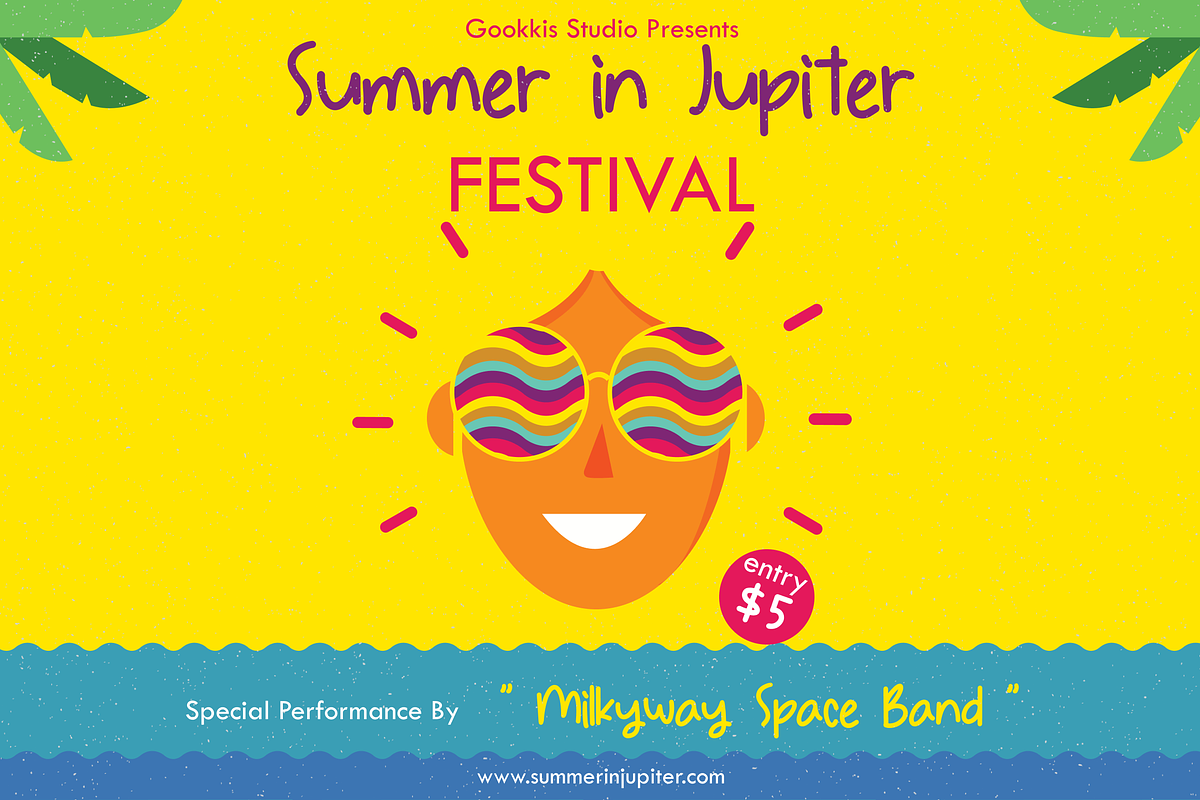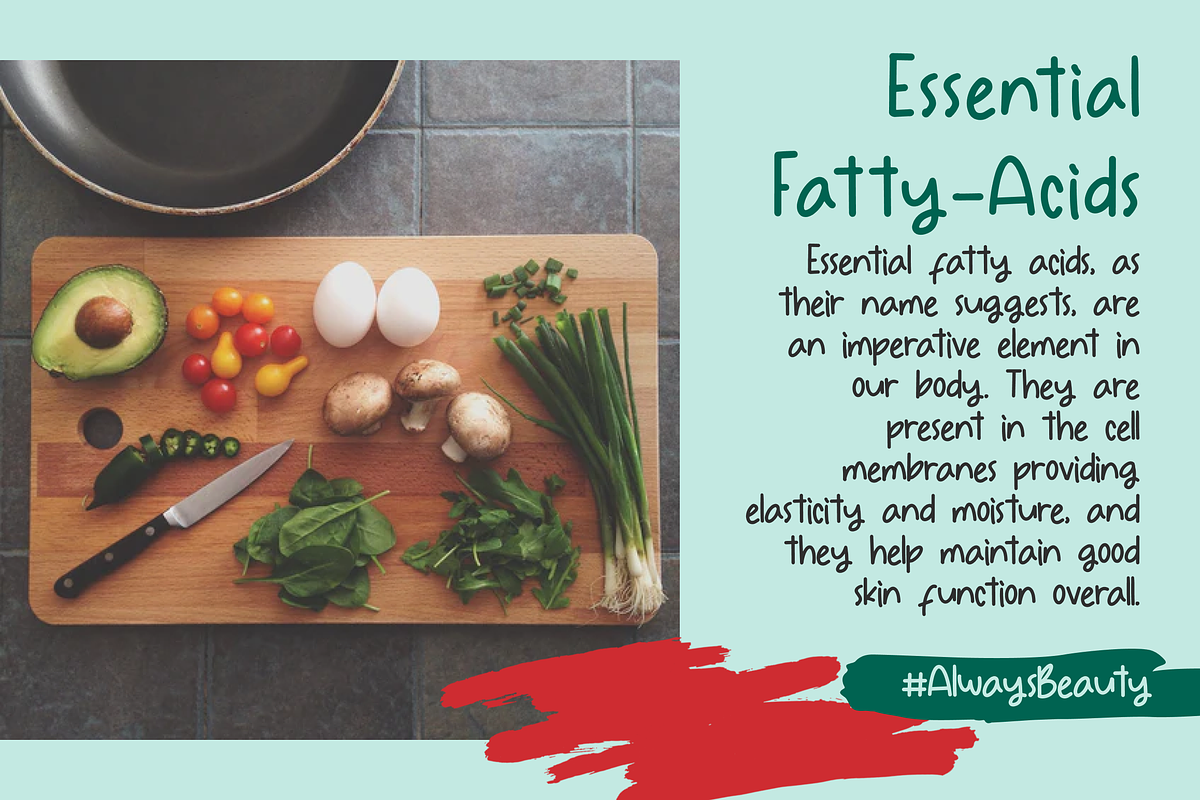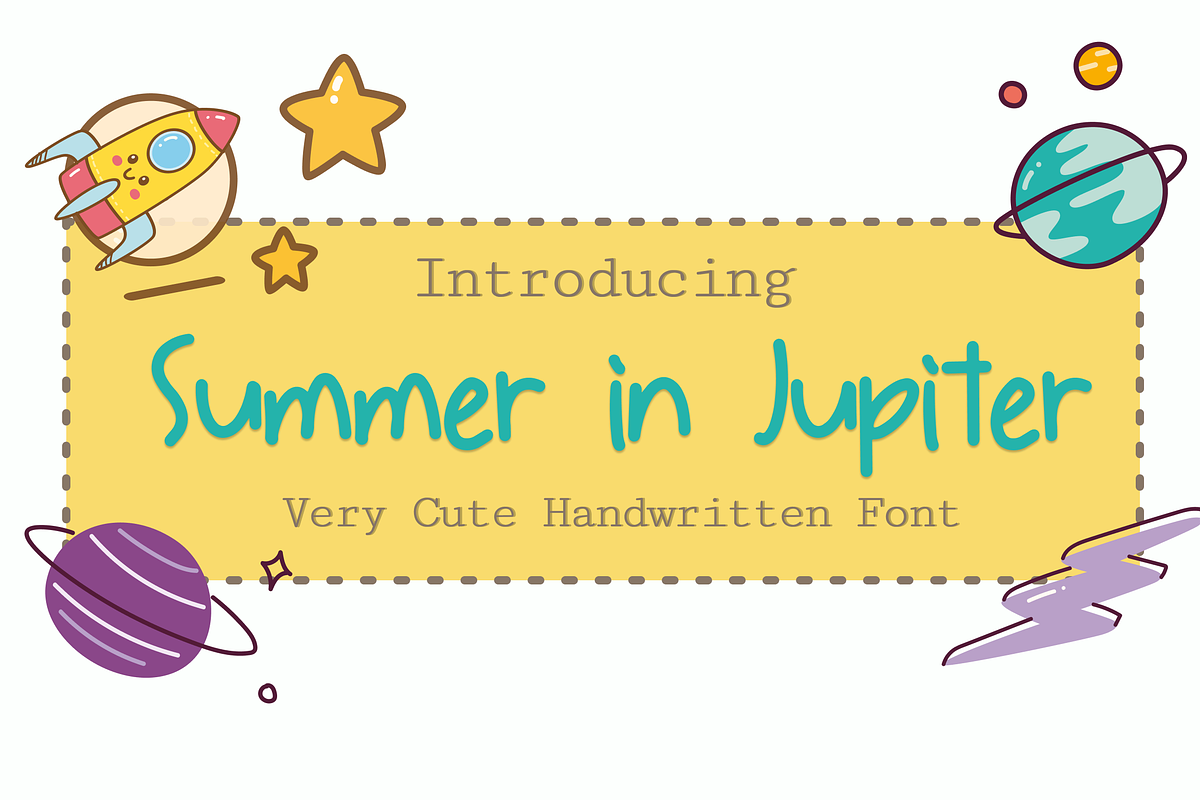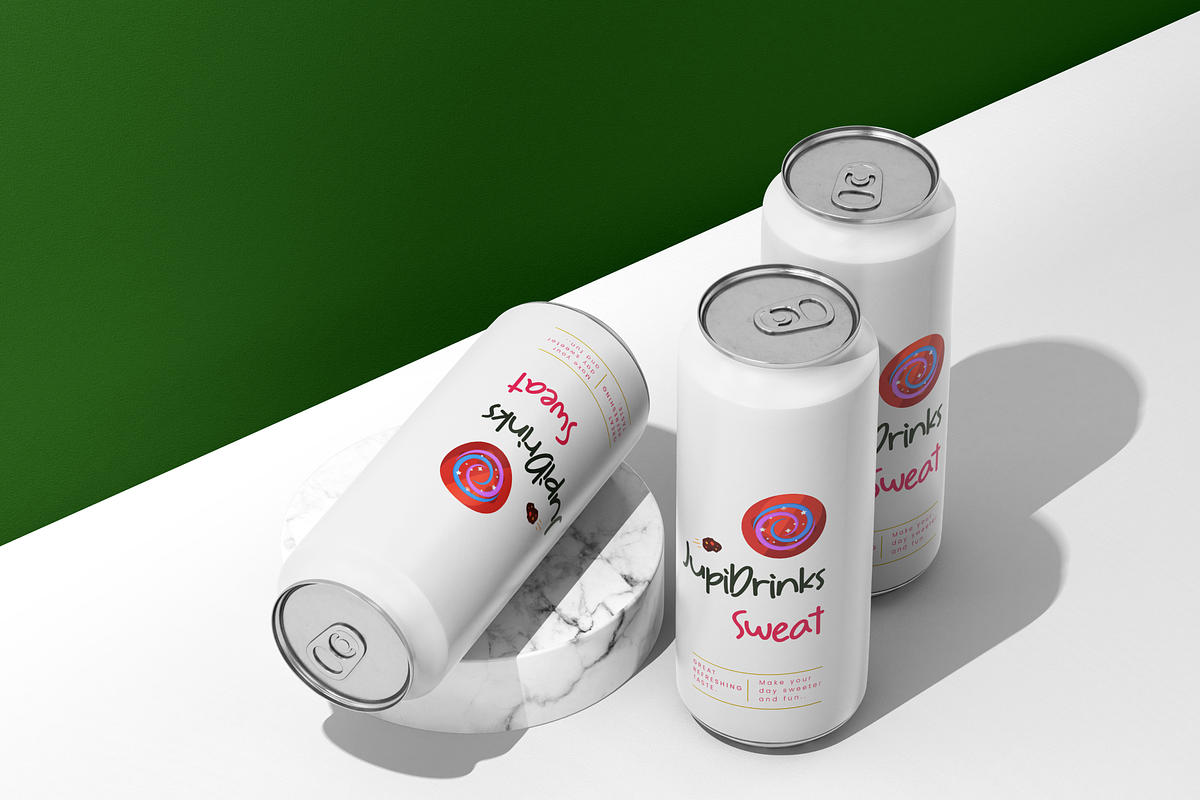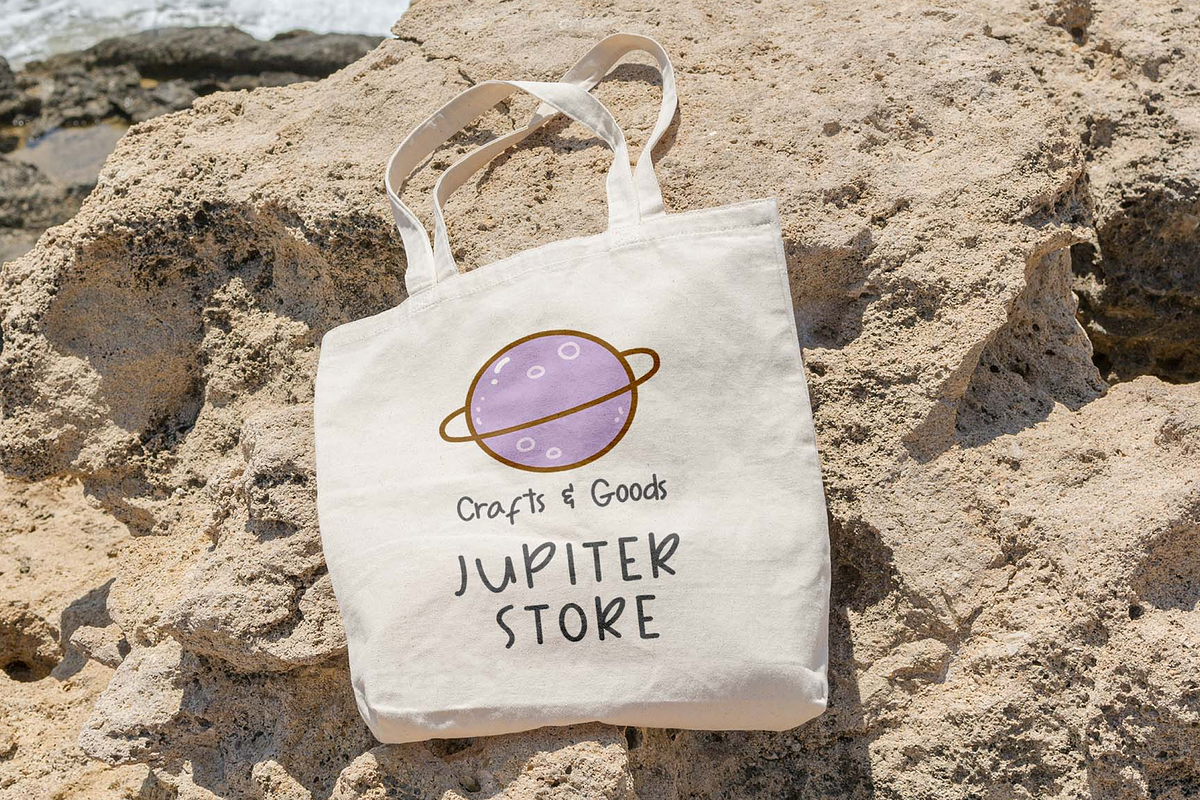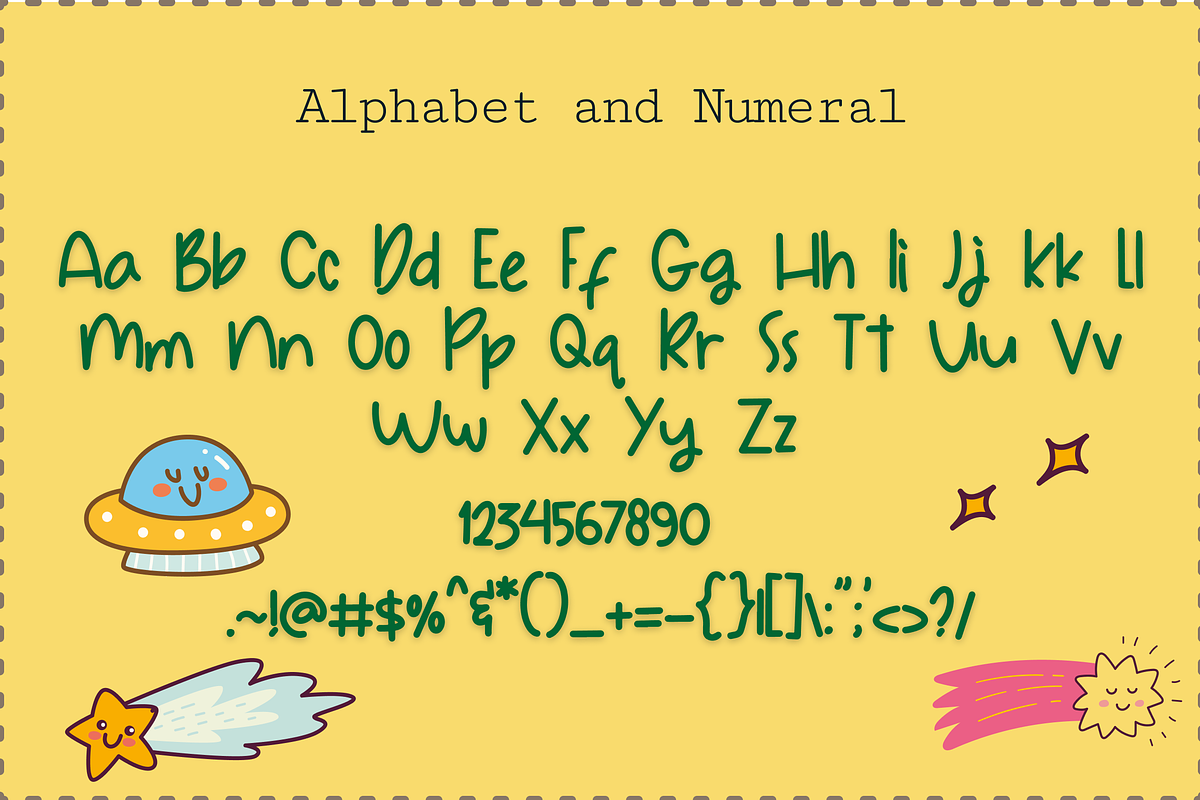
Summer in Jupiter Handwritten Font
Summer in Jupiter is a cool, cute, and sweet handwritten font created with a brush to bring summer and happy vibes. Perfect for creating Instagram posts, stories, and also campaign products, or anything that needs a playful touch.